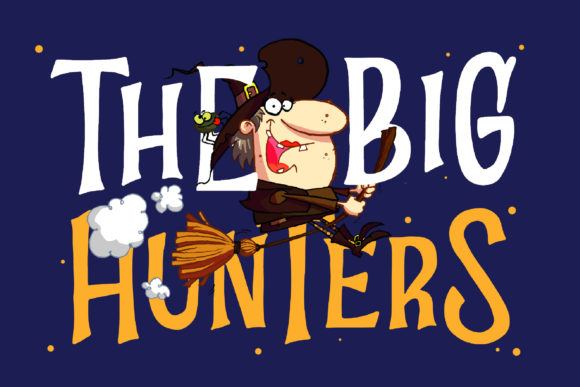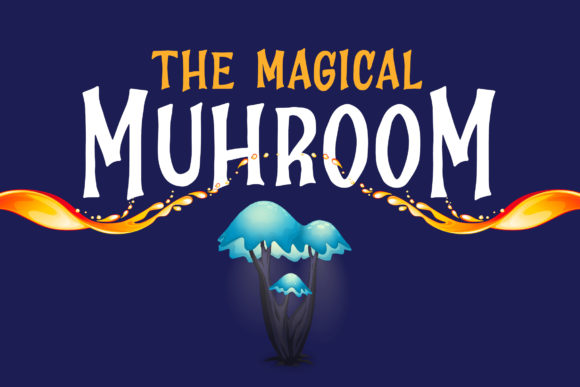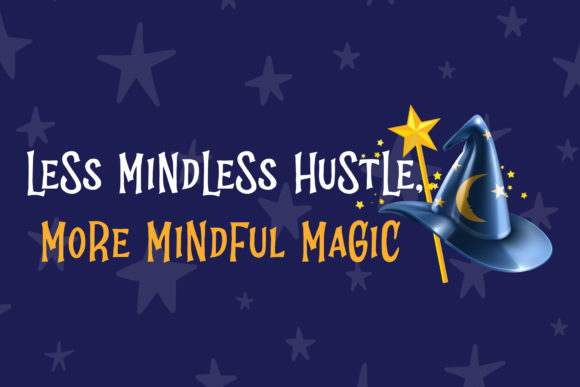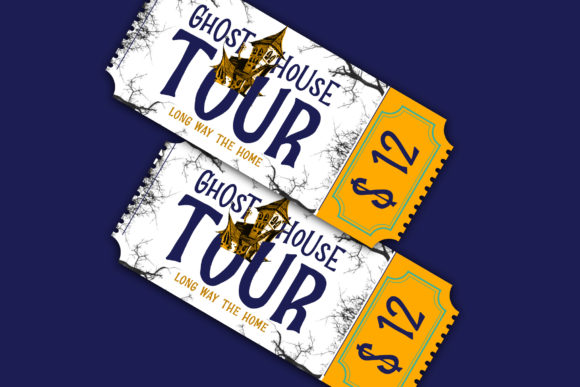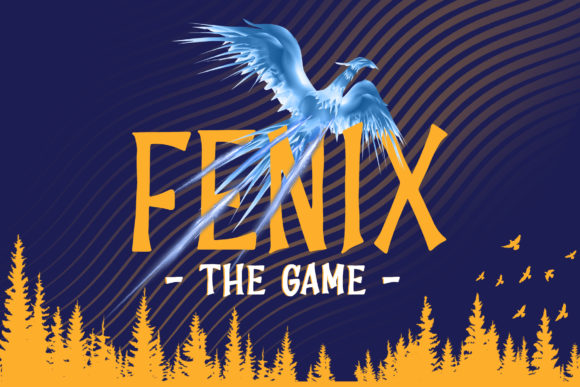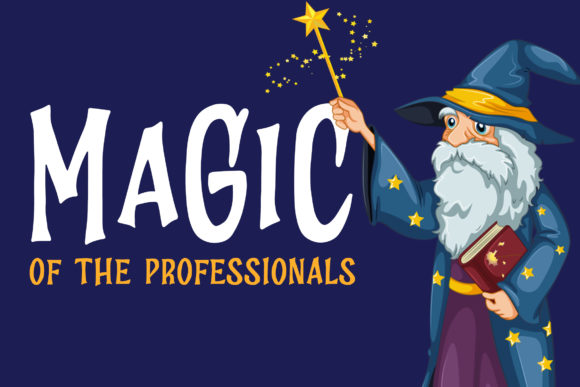
Unleash Your Creativity with Beastman Font: The Ultimate Display Font for Joyful Designs
Are you tired of using the same old fonts for your designs? Do you want to add a touch of whimsy and playfulness to your creative projects? Look no further than Beastman Font, a cute and quirky display font that’s sure to bring a smile to your face. In this article, we’ll dive into the world of Beastman Font and explore how it can elevate your designs to the next level.
What is Beastman Font?
Beastman Font is a unique and charming display font that’s perfect for adding a joyful touch to your designs. With its playful and quirky style, it’s ideal for use in a variety of creative projects, from posters and flyers to social media graphics and craft projects. Whether you’re a designer, crafter, or simply someone who loves to get creative, Beastman Font is a must-have addition to your font collection.
The Benefits of Using Beastman Font
So, what makes Beastman Font so special? Here are just a few benefits of using this amazing display font:
- Adds a playful touch: Beastman Font is the perfect way to add a bit of whimsy and playfulness to your designs. Its quirky style is sure to bring a smile to your face and make your designs stand out.
- Perfect for display text: With its bold and eye-catching style, Beastman Font is ideal for use in display text, such as headings, titles, and captions.
- Easy to read: Despite its playful style, Beastman Font is surprisingly easy to read, making it perfect for use in a variety of creative projects.
- Versatile: Beastman Font can be used in a wide range of creative projects, from digital designs to craft projects and everything in between.
How to Use Beastman Font in Your Designs
So, how can you use Beastman Font in your designs? Here are a few ideas to get you started:
- Posters and flyers: Use Beastman Font as a heading or title font to add a playful touch to your posters and flyers.
- Social media graphics: Add a bit of whimsy to your social media graphics with Beastman Font. It’s perfect for use in Facebook posts, Instagram stories, and more.
- Craft projects: Beastman Font is a great addition to any craft project, from handmade cards to DIY decorations.
- Digital designs: Use Beastman Font in your digital designs, such as website headers, email newsletters, and more.
Tips for Getting the Most Out of Beastman Font
Here are a few tips for getting the most out of Beastman Font:
- Experiment with different colors: Beastman Font looks great in a variety of colors, so don’t be afraid to experiment and find the perfect hue for your design.
- Use it sparingly: While Beastman Font is a fun and playful font, it can be overwhelming if used too much. Use it sparingly to add a touch of whimsy to your designs.
- Pair it with other fonts: Beastman Font pairs well with a variety of other fonts, so don’t be afraid to experiment and find the perfect combination for your design.
Beastman is a cute and quirky display font. It will add an incredibly joyful touch to your designs. Add this beautiful display font to each of your creative ideas and notice how it makes them stand out!